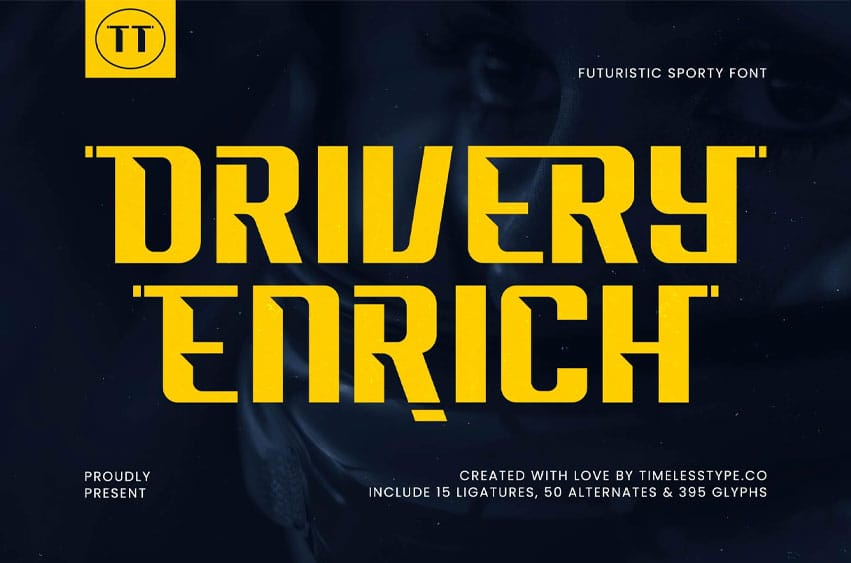
Drivery Enrich Font is a futuristic, sporty typeface built for high-speed visuals and aggressive modern aesthetics. Its sharp geometry, aerodynamic angles, and industrial precision give your typography a bold, high-tech presence—perfect for racing brands, esports identities, automotive posters, techwear labels, UI titles, gaming covers, and dynamic advertising campaigns.
Designed with 15 ligatures, 50 alternates, and a total of 395 glyphs, this font provides extensive flexibility for creating energetic typographic compositions. Every character carries a sense of motion, engineered to enhance themes of speed, power, and digital performance. From logos to banners and product visuals, Drivery Enrich delivers a strong futuristic impact.
Drivery Enrich Font Preview